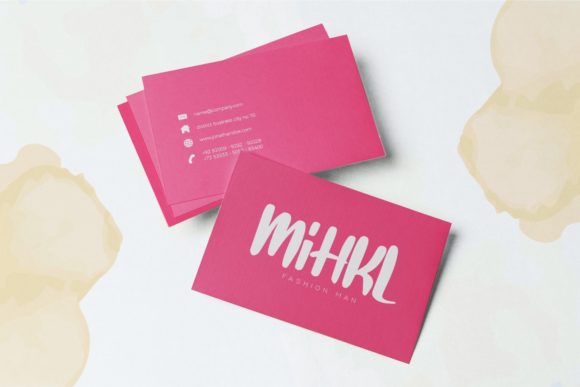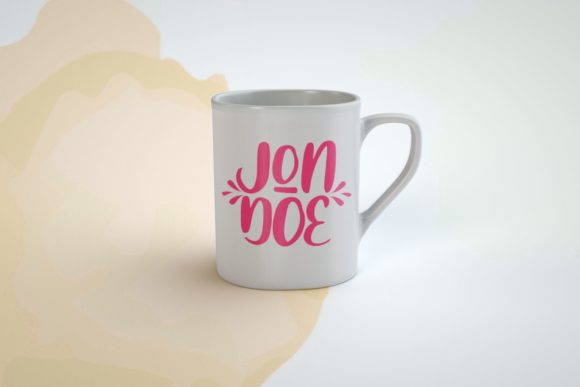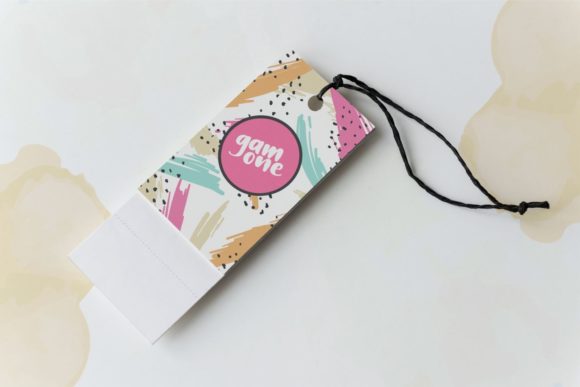
Introduction to Hikari Font
Hikari is a cool and trendy looking handwritten font.
This font is neatly crafted and highly detailed Whatever the topic, this font will be a wonderful asset to your font library, as it has the potential to enhance any creation.
Key Features of Hikari Font
Why Choose Hikari Font?
Hikari Font offers exceptional quality and versatility, making it a valuable addition to your design toolkit. Whether you’re creating for personal projects or commercial use, Hikari Font delivers professional results.